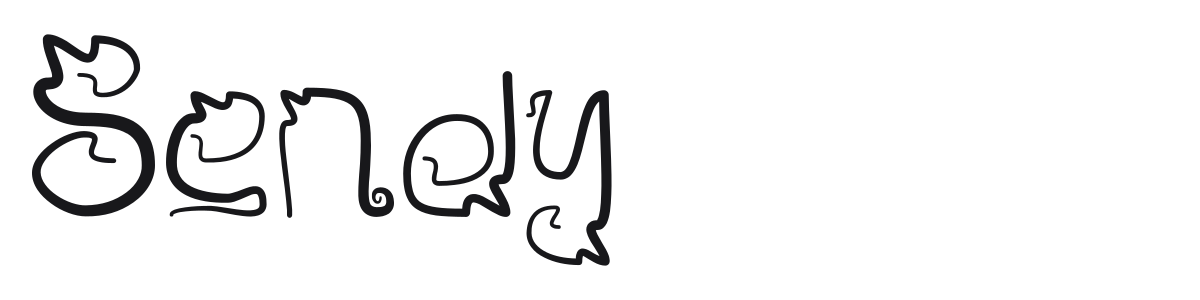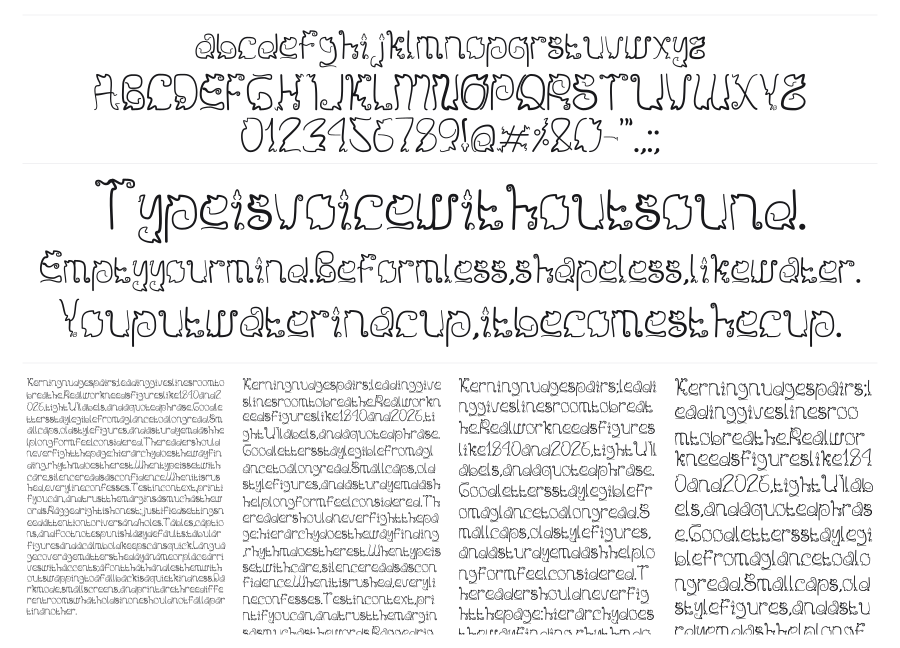
Sendy
by Yanuar
Sendy is a decorative display face by Yanuar with curly, ornamental letterforms that twist and loop with a playful, slightly eccentric energy. The whimsical flourishes give each character a lot of personality, so it works best in short bursts: headlines, packaging, event branding, or anywhere quirky charm is the whole point. Keep it big enough that the curly details stay readable rather than tangled.